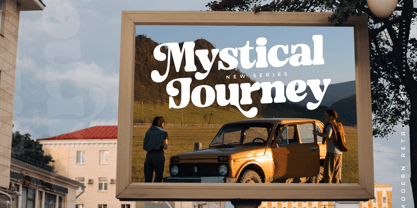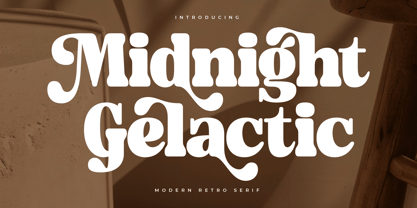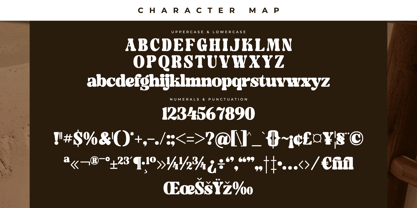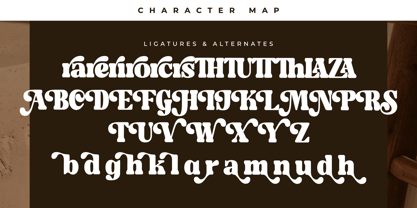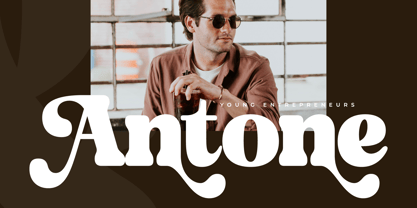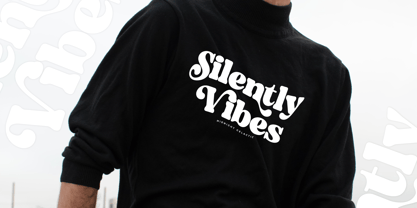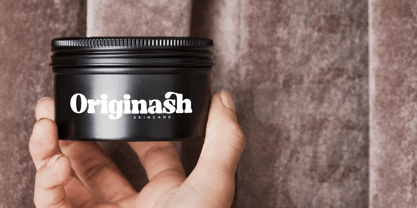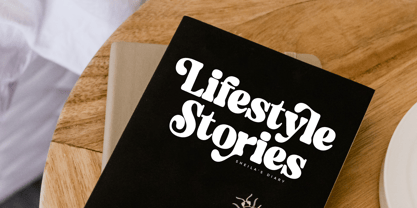
Midnight Gelactic
Die Schriftfamilie Midnight Gelactic wurde von Heru Utama Putra entworfen und von Letterena Studios veröffentlicht. Midnight Gelactic enthält 2 Stile und Familienpaketoptionen.
Midnight Gelactic is a modern and stylish serif font that combines sophistication with contemporary flair. Its clean lines and balanced proportions make it perfect for editorial designs, branding, and logos. With its versatility and timeless appeal, Midnight Gelactic elevates any project with elegance and professionalism.